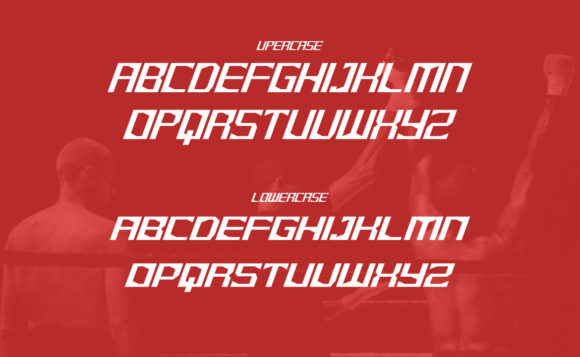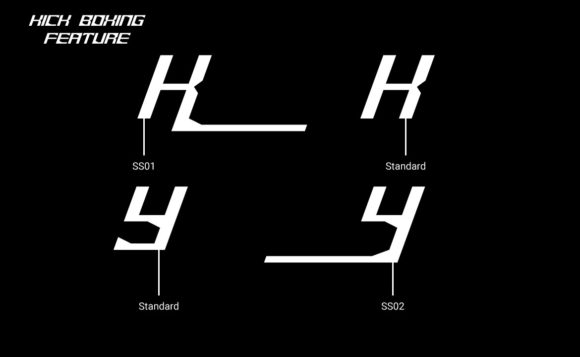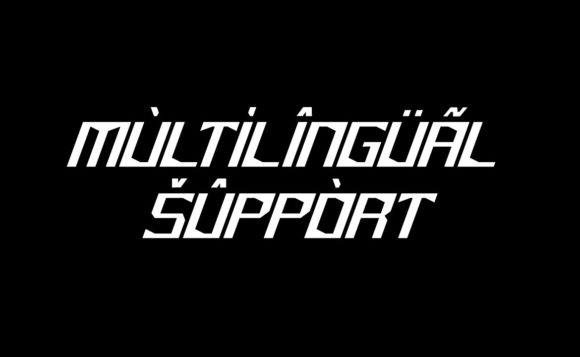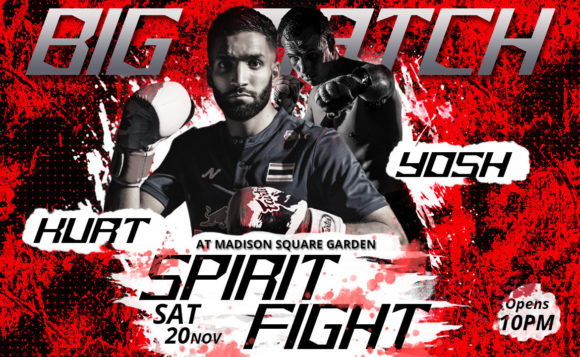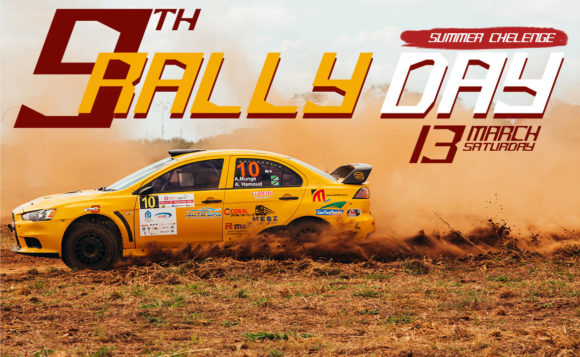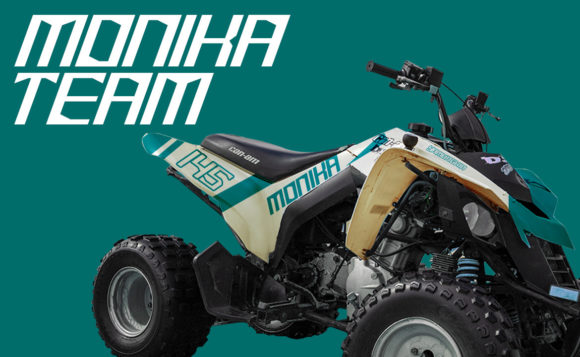
Introduction to Kick Boxing Font
Do you remember the rush of adrenaline when you’re working on a creative project, and the perfect font suddenly clicks into place? It’s that moment when everything falls into alignment, and your design comes alive. For designers, finding the right font can be the difference between a good design and a great one.
That’s why we’re excited to introduce the Kick Boxing Font, a high-quality sports font display that’s sure to knock out your next design project. Inspired by the speed and energy of boxing, this font is perfect for graphic designers, logo creators, and anyone looking for a bold and dynamic font to add some punch to their design.
Key Features of Kick Boxing Font
- High-quality design: Kick Boxing Font is a premium design resource perfect for creative projects that require a bold and edgy look.
- Transparent background: The font’s transparent background allows for easy integration with various design elements and backgrounds.
- Vector format: The font is designed in vector format, making it scalable to any size without losing quality.
- High-resolution design: Kick Boxing Font is designed at 300 DPI, ensuring that it looks crisp and clear on high-resolution displays.
- Perfect for kickboxing and sports-themed designs: As the name suggests, this font is ideal for designs related to kickboxing and sports, but it can also be used for other creative projects that require a bold and energetic look.
Honest Review: Kick Boxing Font
As a designer, I’m always on the lookout for high-quality design resources to elevate my creative projects. Recently, I had the chance to work with the Kick Boxing Font, and I’m here to share my honest thoughts.
- The font has a high-quality, professional look that’s perfect for sports and fitness-themed designs.
- The font is highly legible, even at smaller sizes, which is a must for any design project.
The Kick Boxing Font is a relatively simple font, lacking some of the more complex glyphs and characters that might be needed for more intricate designs.
Overall, I’m impressed with the Kick Boxing Font. It’s a great addition to any designer’s toolkit, especially for sports and fitness-themed projects. While it may not be the most versatile font, its high-quality design and free download make it a solid choice for any creative project.
Tips for Getting the Most Out of Kick Boxing Font
Experiment with different font sizes and styles to create visual interest. Combine the Kick Boxing Font with other design elements to create a unique and engaging visual identity. Use the font’s transparent background to create layered designs and add depth to your visuals.
Common Use Cases for Kick Boxing Font
The Kick Boxing Font is ideal for sports-related designs, such as fitness programs, athletic wear, and sports equipment branding. It’s also great for creating bold and eye-catching titles, headings, and body text for any creative project. Use the font to add a touch of energy and dynamism to your designs.